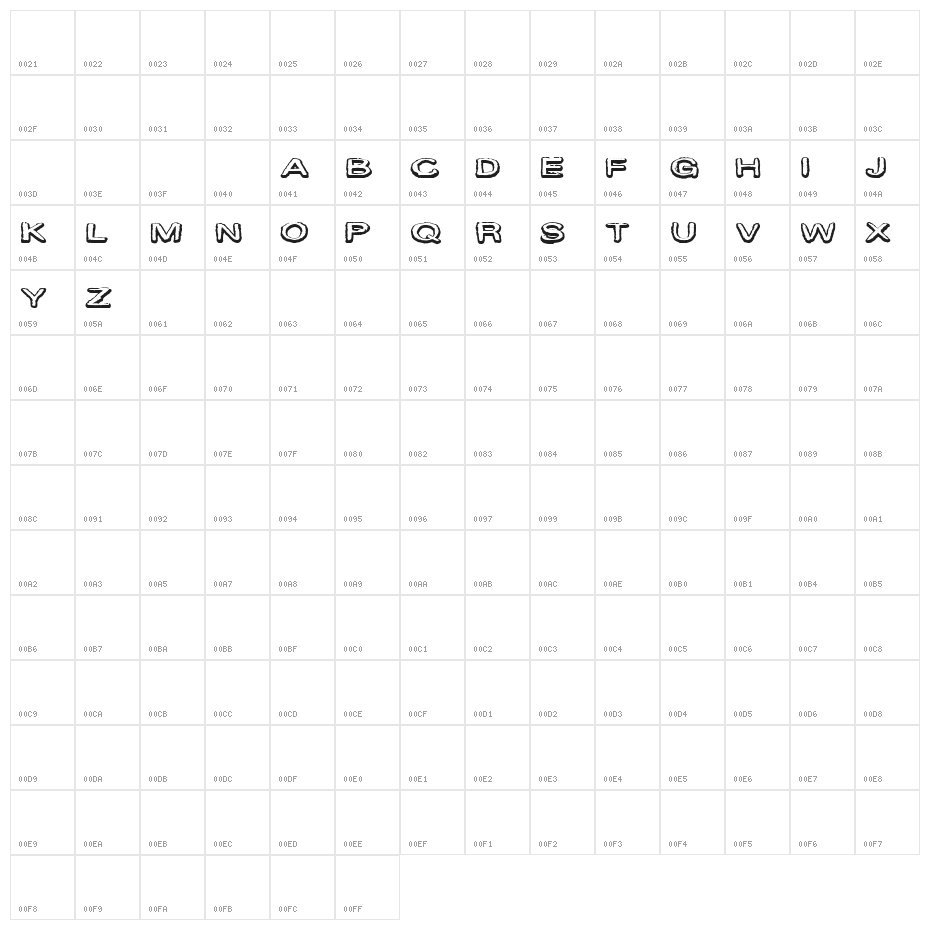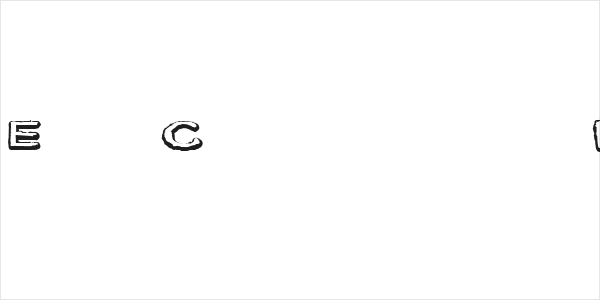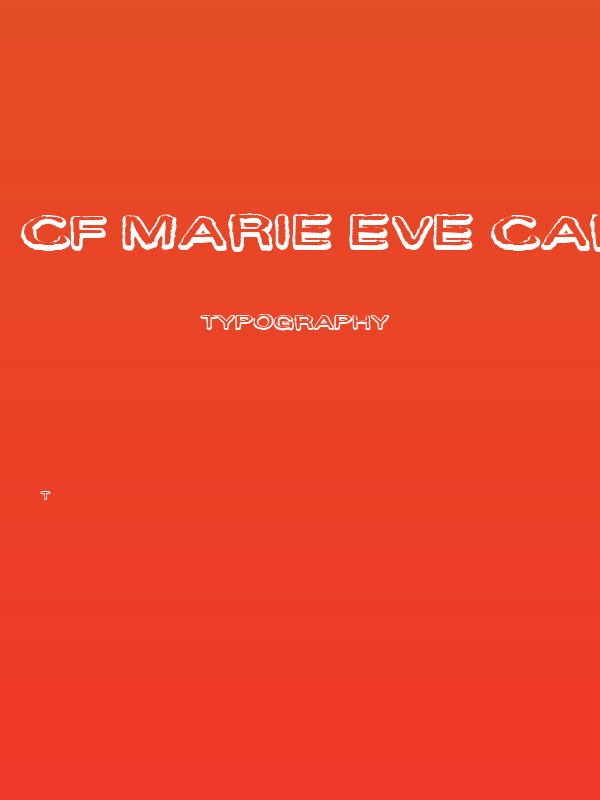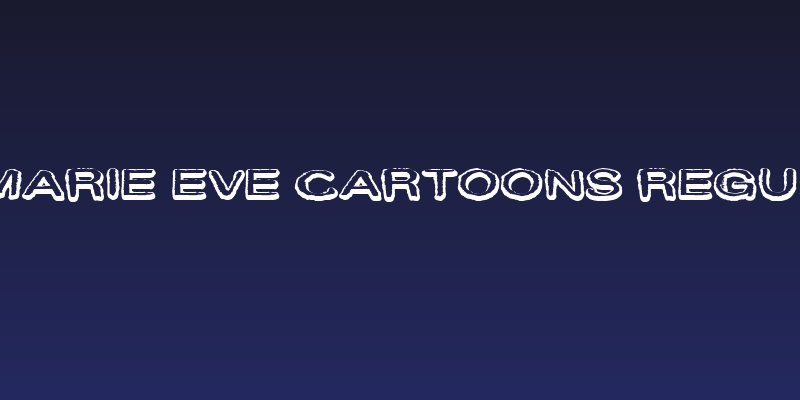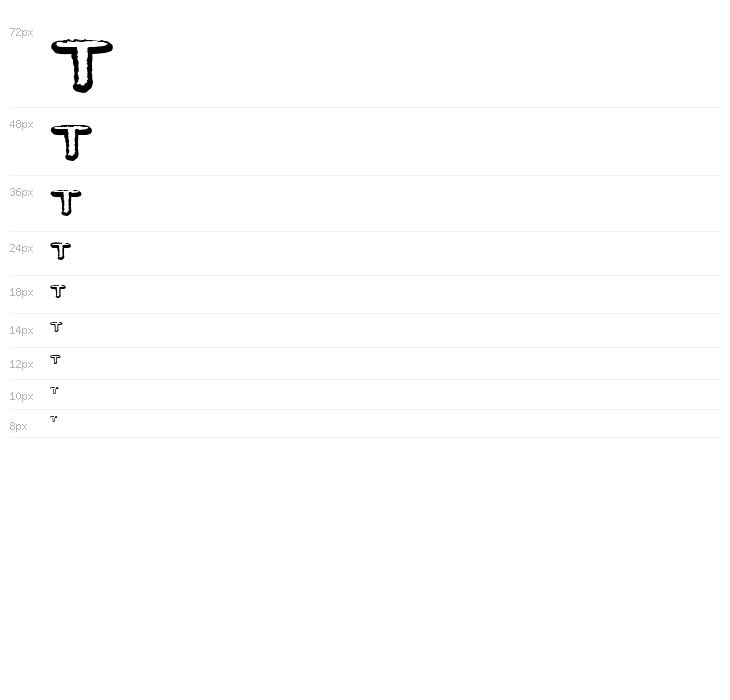
CF Marie Eve Cartoons Regular Font
CF Marie Eve Cartoons Regular Description
This font features a playful and bold cartoon style, characterized by thick outlines and a slightly irregular, hand-drawn appearance. The letters are uppercase and exhibit a sense of fun and creativity, making them ideal for projects that require a lively and informal touch. The strokes are consistent in thickness, providing a uniform look across all characters. The font's whimsical nature is perfect for children's books, comic strips, or any design that aims to capture a sense of joy and imagination.
| Overall Style | Playful, Cartoonish |
| Proposed Projects | Ideal for children's books, comic strips, playful posters, and creative branding. |